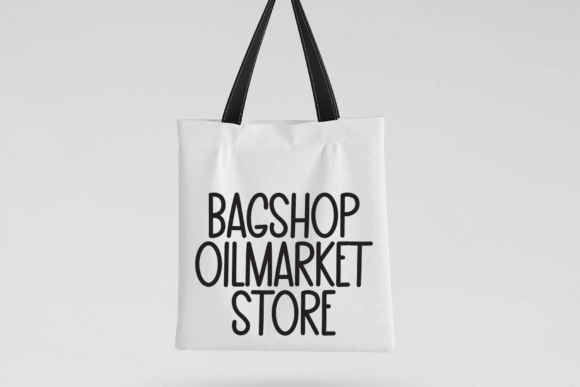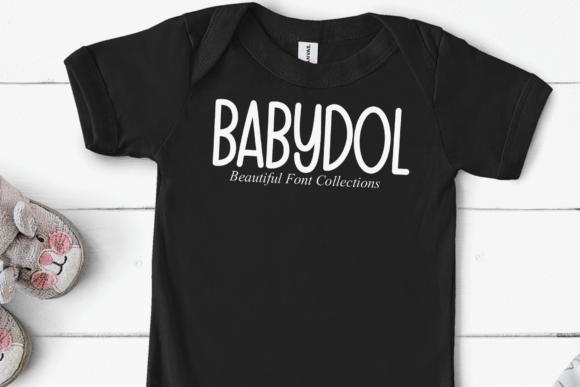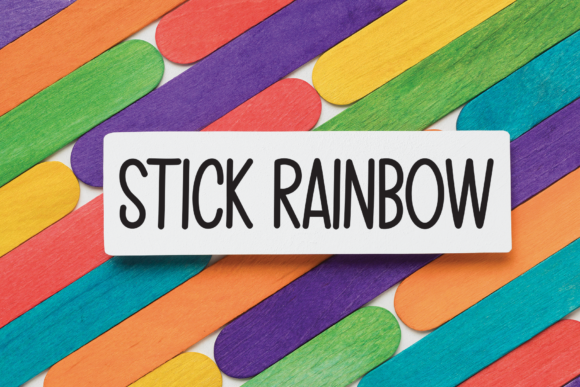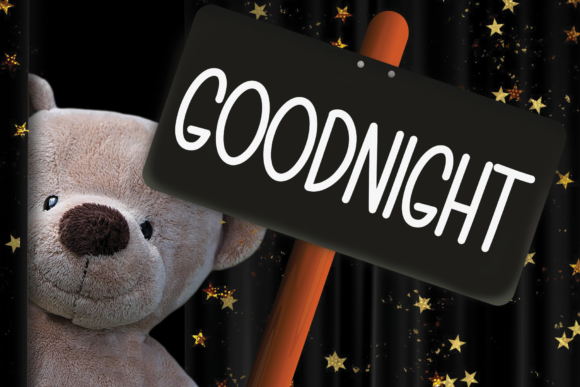
Introduction to Ribbond Font
You know that feeling when you’re working on a creative project and the right font is the missing piece that brings everything together? It’s like finding the perfect melody to match your artwork’s rhythm. For many designers, that moment of discovery is what makes all the difference in elevating their work from good to great.
Today, we’re excited to introduce you to Ribbond Font, a friendly and casual handwritten font that’s about to become your new best friend in the design world. With its unique charm and versatility, Ribbond Font has the potential to elevate any creation, whether you’re working on a blog post, a social media graphic, or a full-fledged design project.
Key Features of Ribbond Font
- Unique, hand-drawn design perfect for creative projects and artistic expressions.
Honest Review: Ribbond Font
As a designer, I’m always on the lookout for high-quality design resources to elevate my creative projects. Recently, I stumbled upon the Ribbond Font, and I’m excited to share my honest review with you.
- ✨ High-quality typography: The Ribbond Font boasts a unique and elegant design, perfect for making a statement in your designs.
- ⚠️ Limited font styles: While the font itself is beautiful, the available styles are limited, which may not be suitable for all design projects.
Overall, I think the Ribbond Font is a solid design resource that can add a touch of elegance to your creative projects. While it may not be perfect, it’s definitely worth considering for your next design endeavor.
Tips for Getting the Most Out of Ribbond Font
Use Ribbond Font in combination with other design elements to create a unique and eye-catching look. Experiment with different font sizes and styles to add depth and interest to your design. Use the font with a transparent background to create a sense of layering and dimension.
Common Use Cases for Ribbond Font
The Ribbond Font is perfect for a wide range of creative projects, including logos, graphics, presentations, and documents. Use it to add a touch of elegance and sophistication to your designs, or to create a bold and eye-catching look.